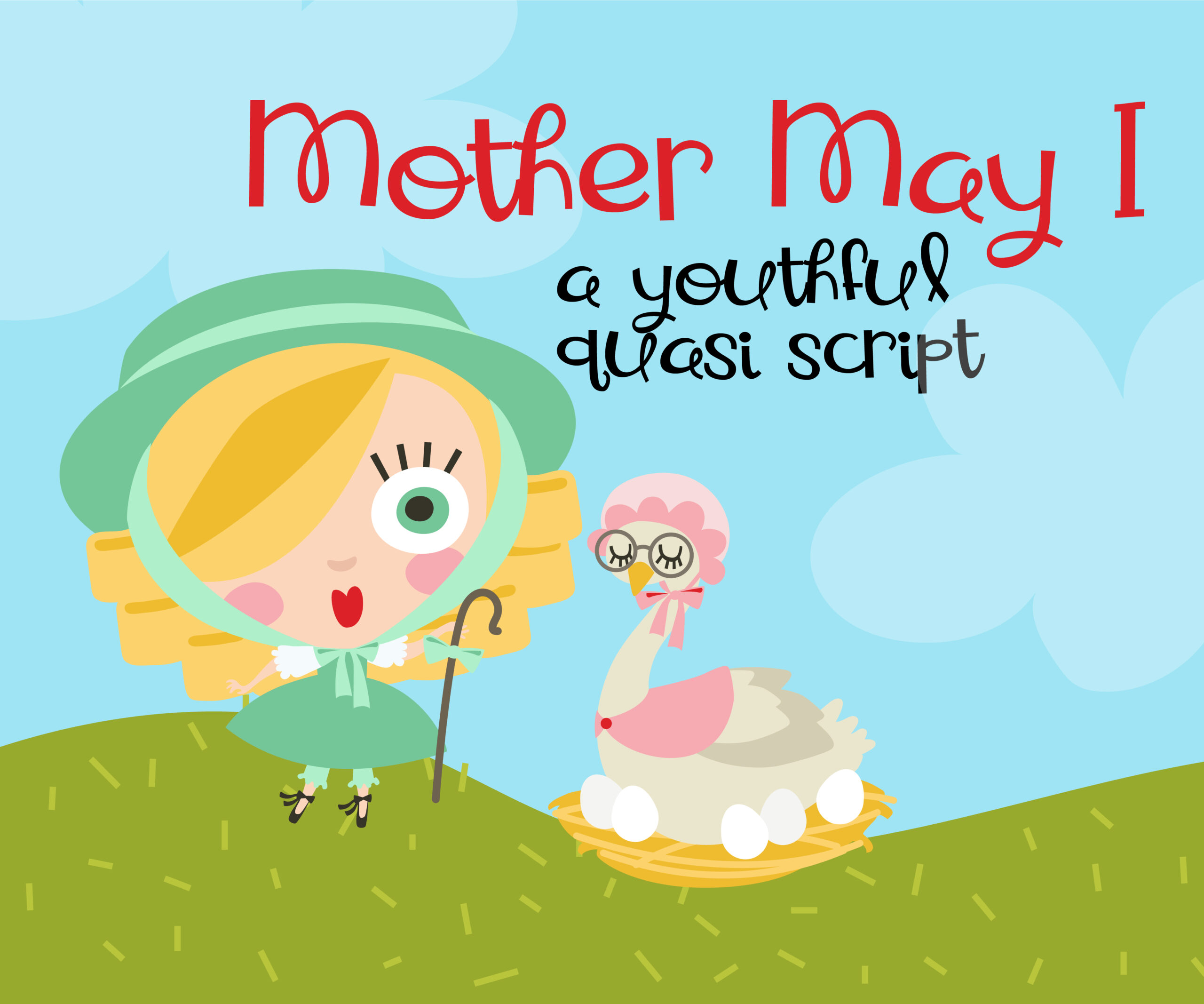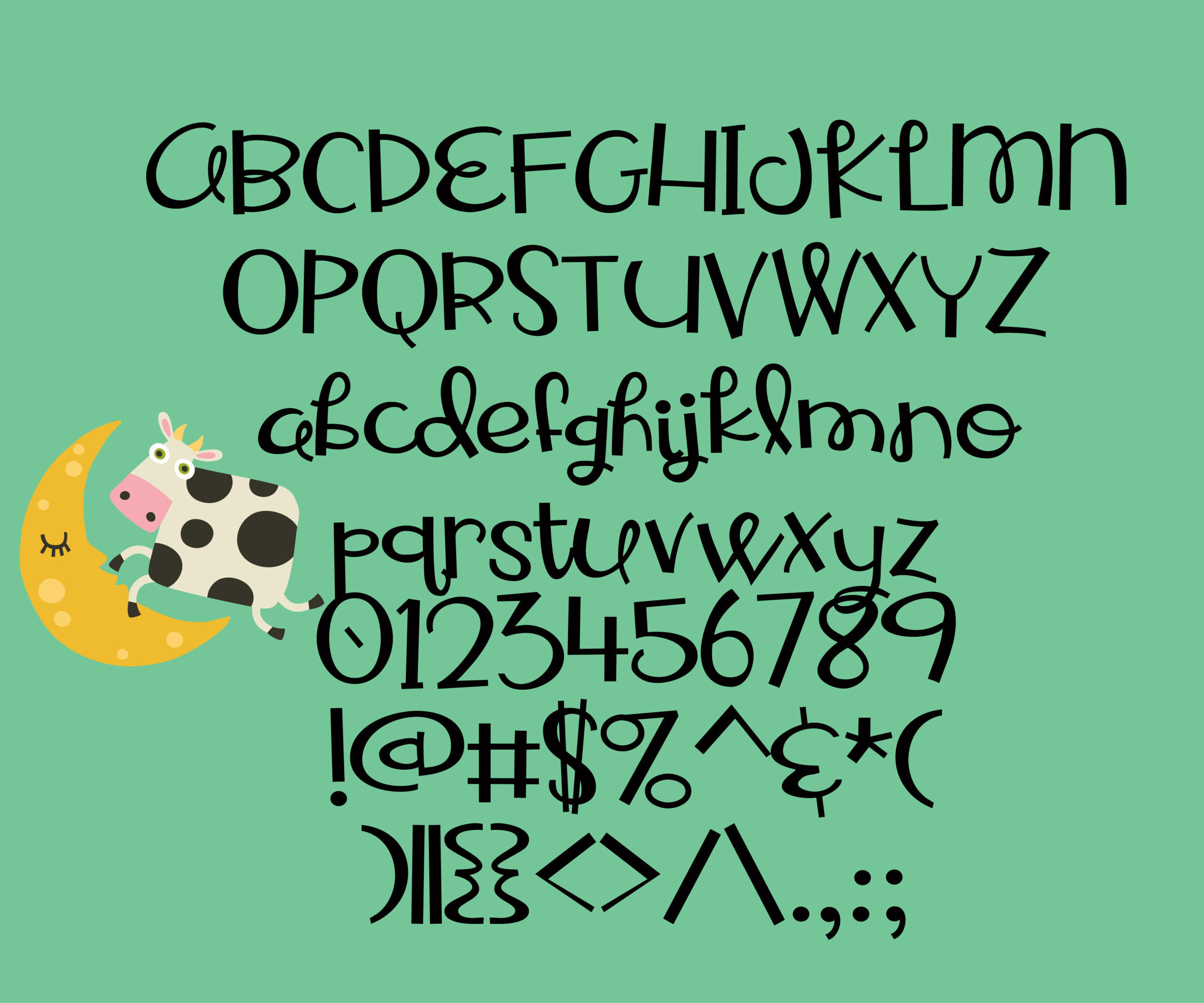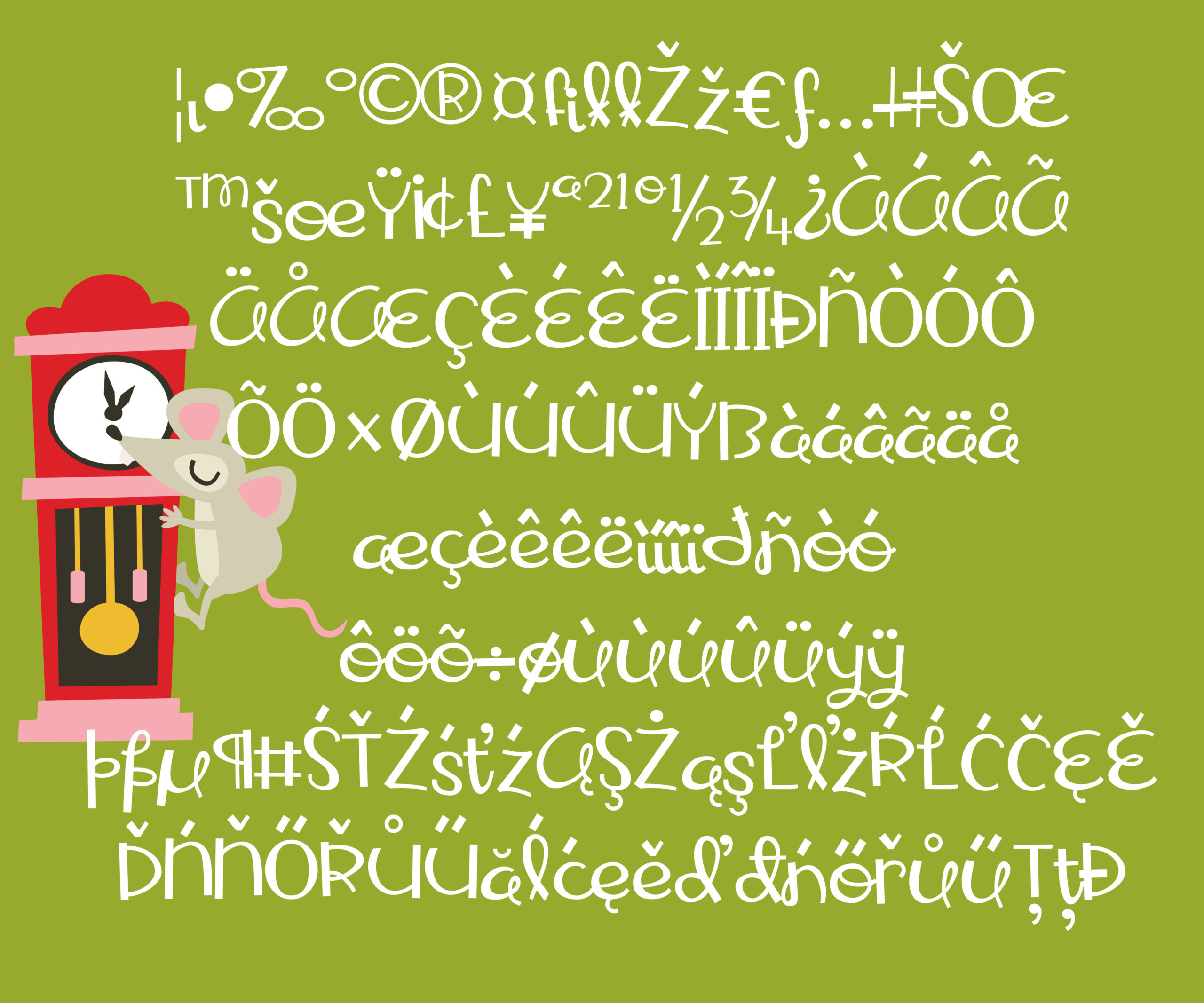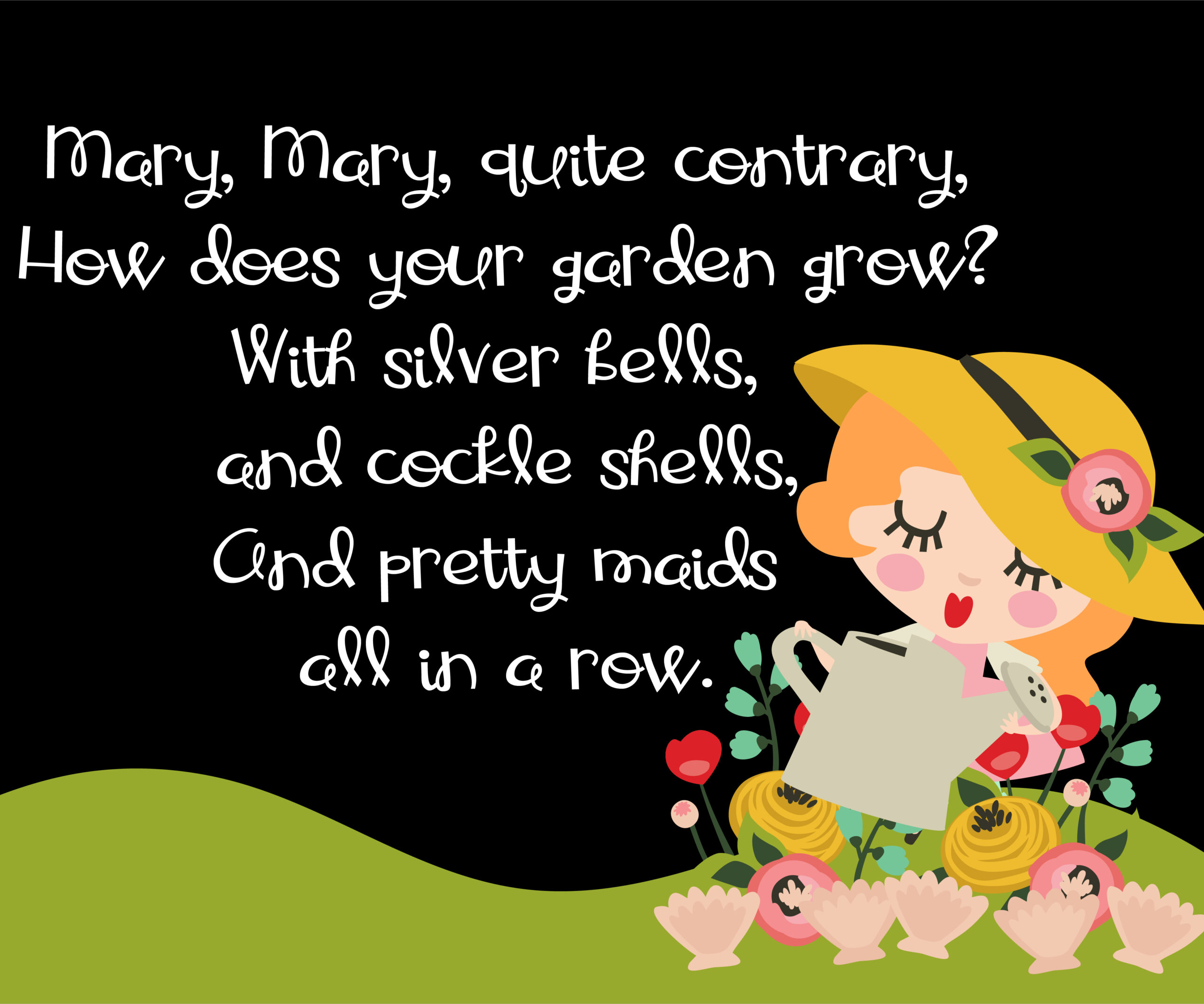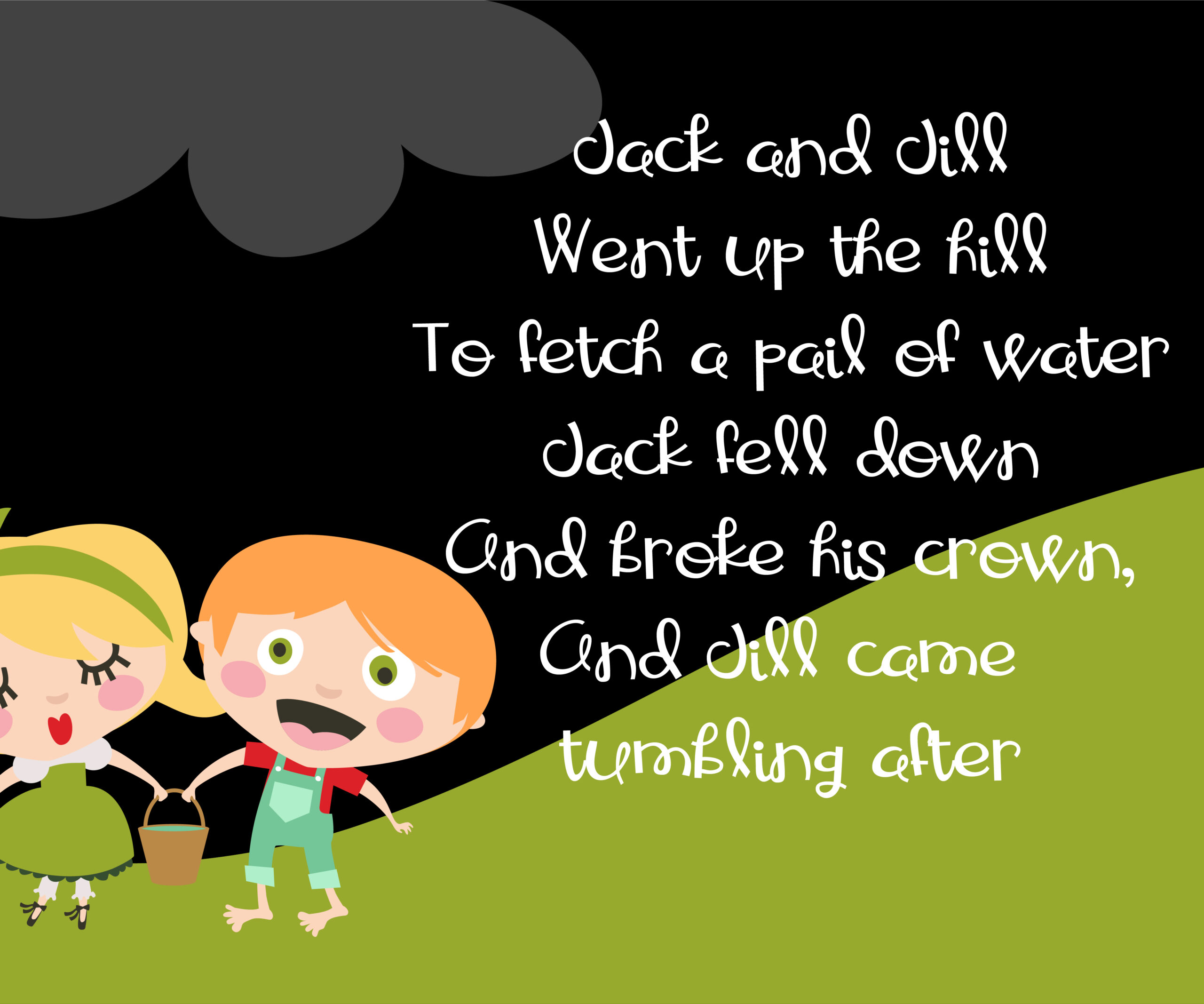
Mother May I Font
About Mother May I Font
Mother May I is a fun and youthful script font that we like to call a quasi-script. It has script like tendencies but it is combined with a printed youthful look as well for a more relaxed feel.